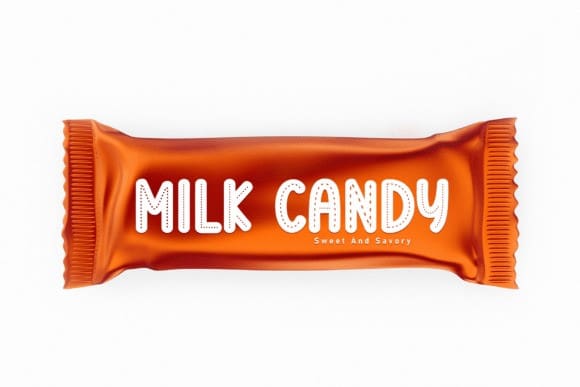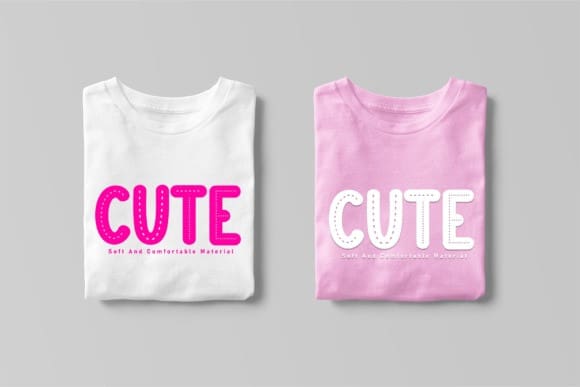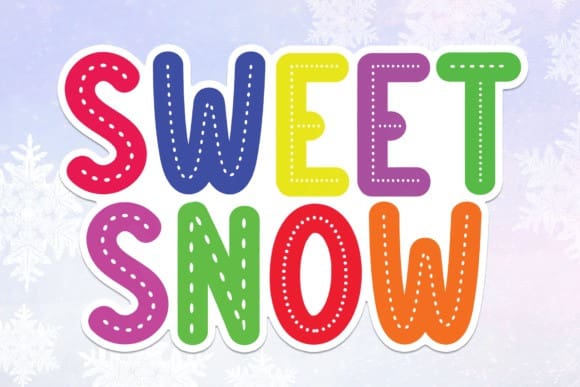
Sweet Snow Font
Sweet Snow font is a playful and boldly designed typeface that adds a touch of whimsy to your projects. With its charming characters, it’s perfect for creating eye-catching and fun designs, from holiday cards to cheerful posters.